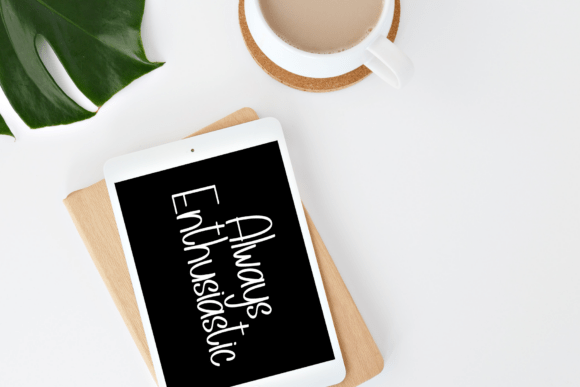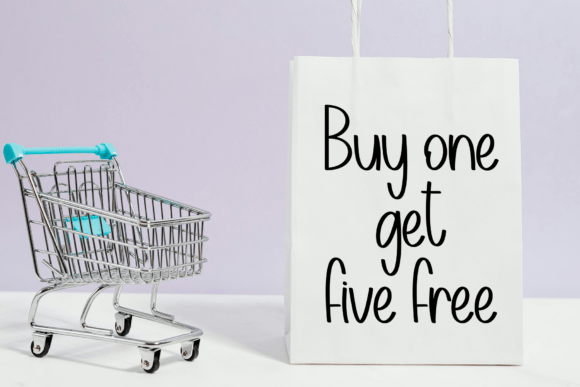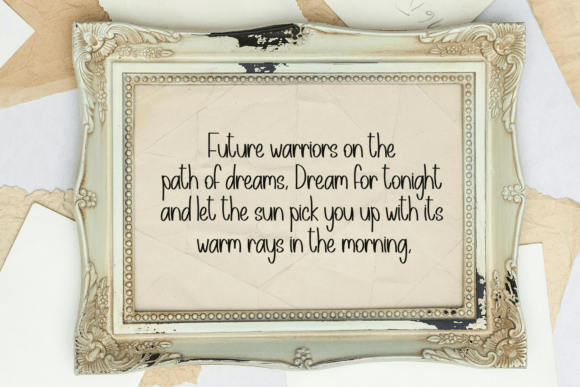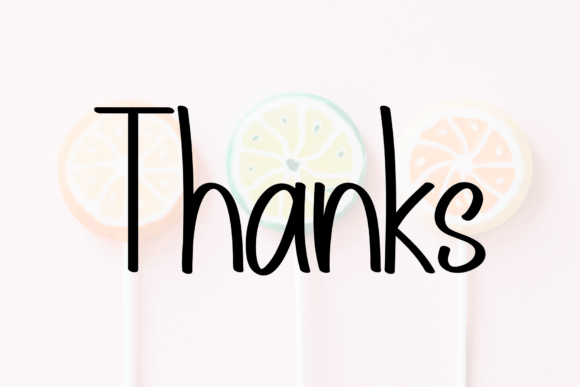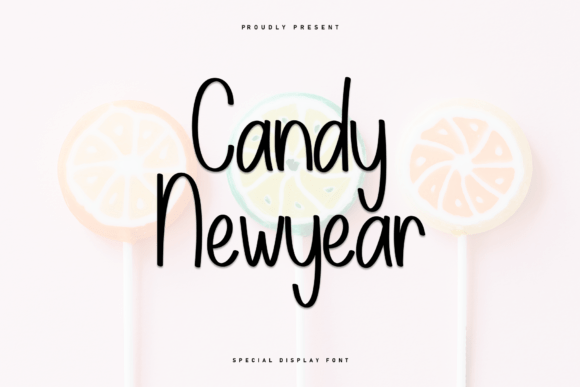
Candy Newyear Font: A Sweet and Beautiful Handwritten Font for Your Design Projects
Are you looking for a font that can add a touch of sweetness and coziness to your design projects? Look no further than the Candy Newyear Font! This beautiful handwritten font is perfect for designers and crafters who want to create unique and eye-catching designs that stand out from the crowd.
What is Candy Newyear Font?
Candy Newyear Font is a sweet and beautiful handwritten font that features characters that dance along the baseline. This font is designed to add a cozy accent to any design project you wish to create, making it perfect for a wide range of applications, from greeting cards and invitations to branding and packaging.
Key Features of Candy Newyear Font
• Handwritten style: Candy Newyear Font has a beautiful handwritten style that gives it a personal and unique touch.
• Dancing characters: The characters in this font dance along the baseline, adding a playful and whimsical touch to your designs.
• Coziness: This font has a cozy and inviting feel that makes it perfect for designs that require a warm and friendly tone.
• Versatility: Candy Newyear Font can be used for a wide range of design projects, from digital designs to print materials.
Why Use Candy Newyear Font?
There are many reasons why you should consider using Candy Newyear Font for your design projects. Here are a few:
• Add a personal touch: This font has a personal and handwritten style that can add a unique touch to your designs.
• Stand out from the crowd: The dancing characters and cozy feel of this font make it stand out from more traditional fonts.
• Perfect for crafters: Candy Newyear Font is perfect for crafters who want to create unique and eye-catching designs for their handmade products.
Design Ideas Using Candy Newyear Font
Candy Newyear Font is a versatile font that can be used for a wide range of design projects. Here are a few ideas to get you started:
• Greeting cards: Use this font to create beautiful and unique greeting cards for special occasions.
• Invitations: Add a touch of sweetness and coziness to your invitations with Candy Newyear Font.
• Branding: Use this font to create a unique and eye-catching brand identity for your business.
• Packaging: Add a personal touch to your product packaging with this beautiful handwritten font.
• Digital designs: Use Candy Newyear Font to create unique and eye-catching digital designs, such as social media graphics and blog posts.
Tips for Using Candy Newyear Font
Here are a few tips for using Candy Newyear Font:
• Use it sparingly: This font is best used sparingly, as it can be overwhelming if overused.
• Pair it with other fonts: Pair Candy Newyear Font with other fonts to create a unique and eye-catching design.
• Experiment with colors: Experiment with different colors to find the perfect combination for your design.
Candy Newyear Font is a sweet and beautiful handwritten font that can add a touch of coziness and uniqueness to your design projects. With its dancing characters and handwritten style, this font is perfect for designers and crafters who want to create eye-catching designs that stand out from the crowd. Whether you’re creating greeting cards, invitations, branding, packaging, or digital designs, Candy Newyear Font is a great choice.